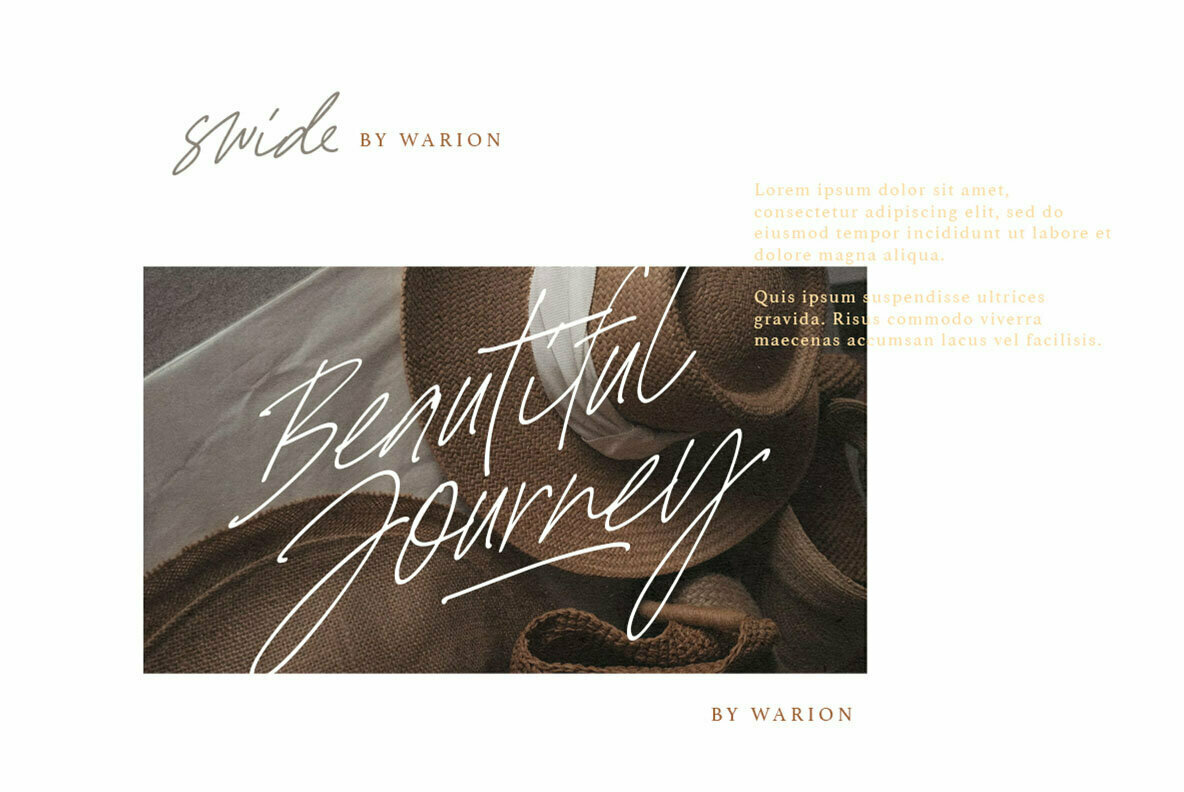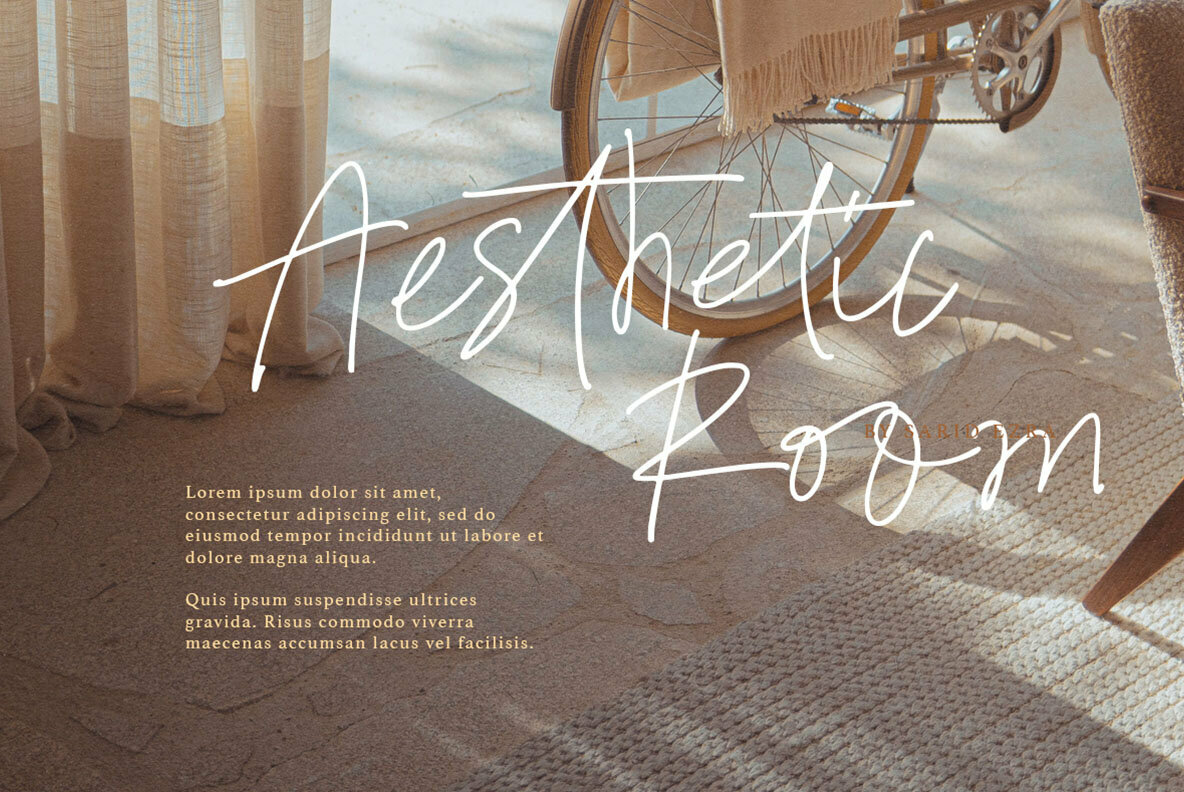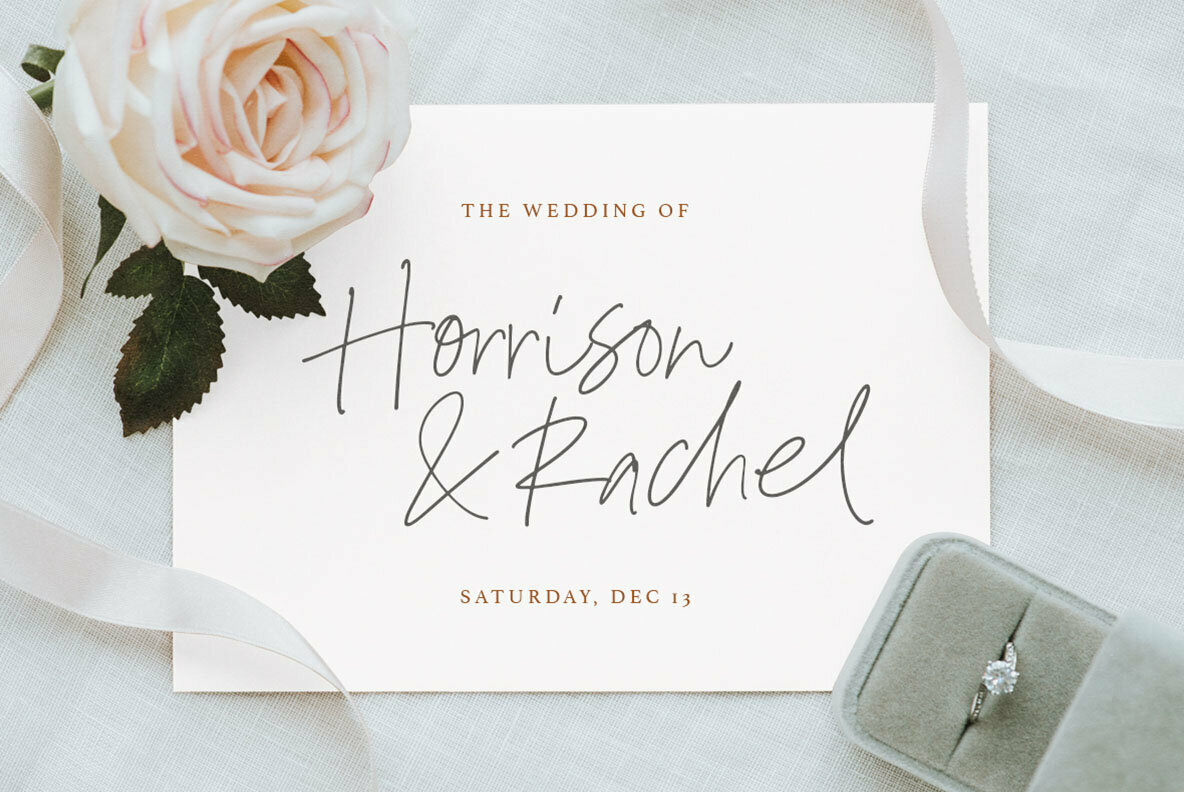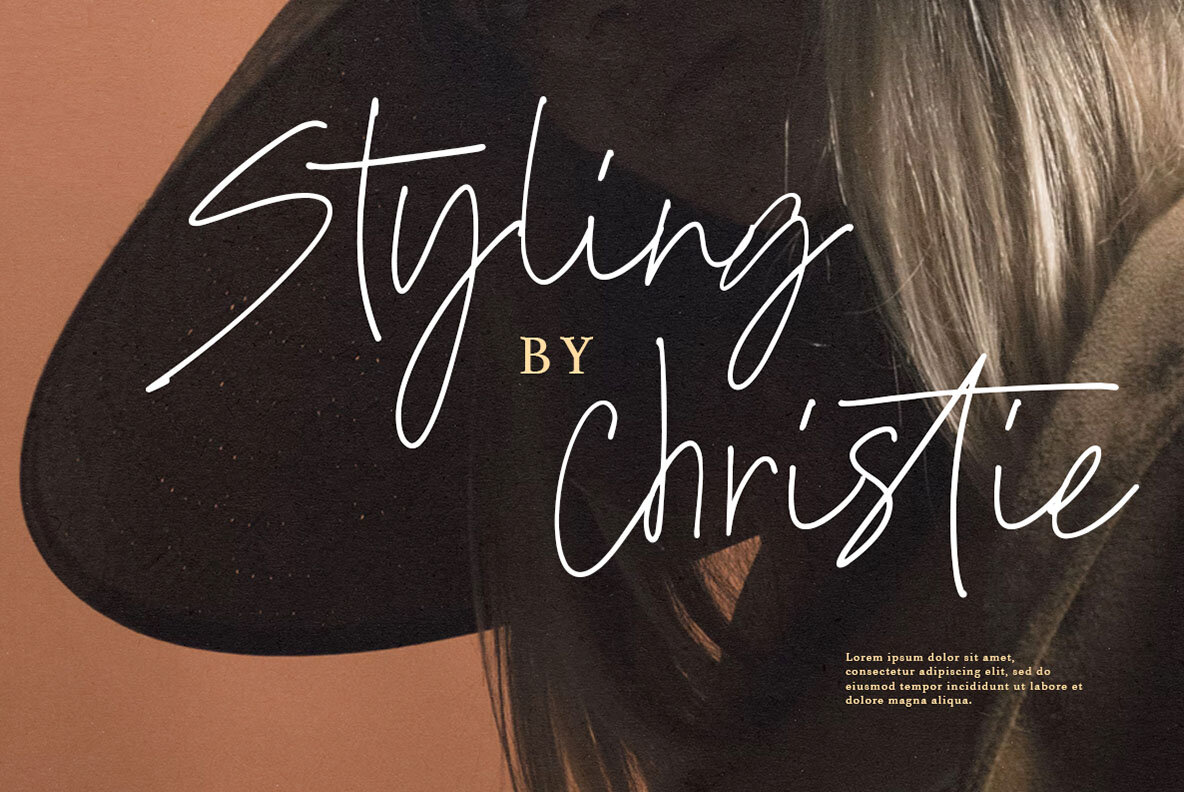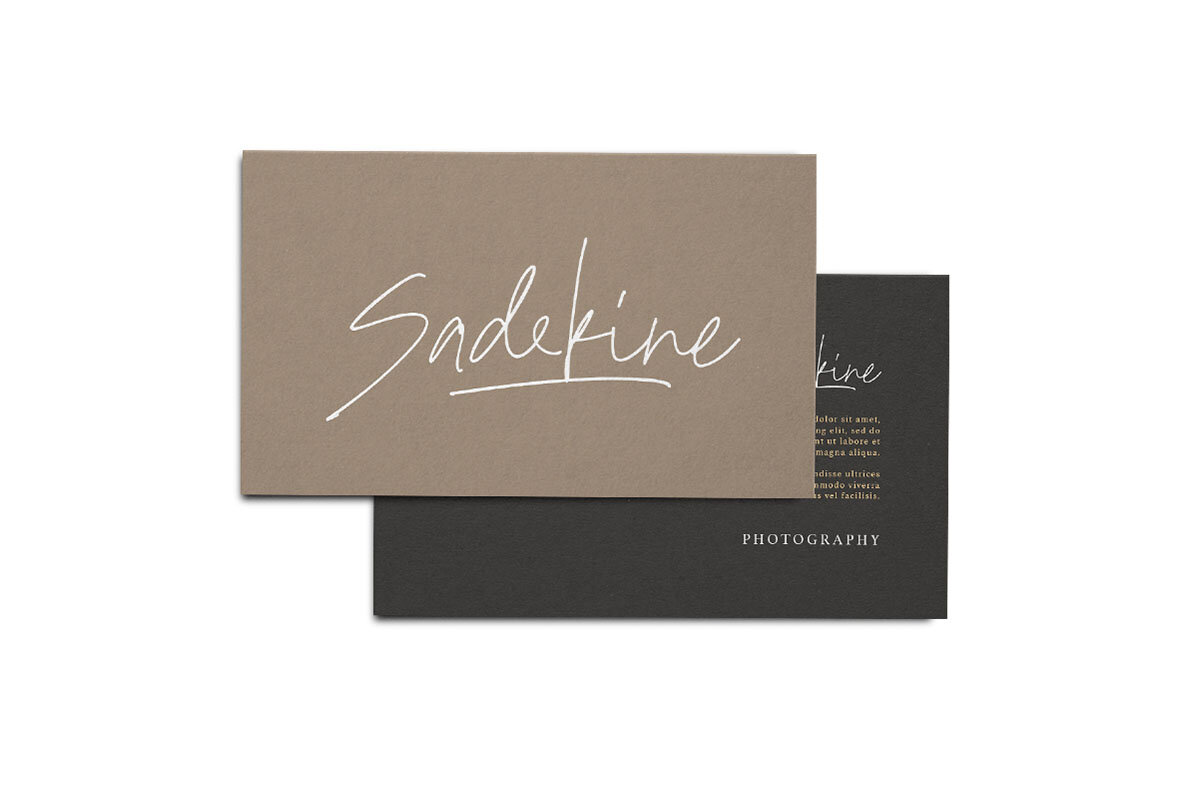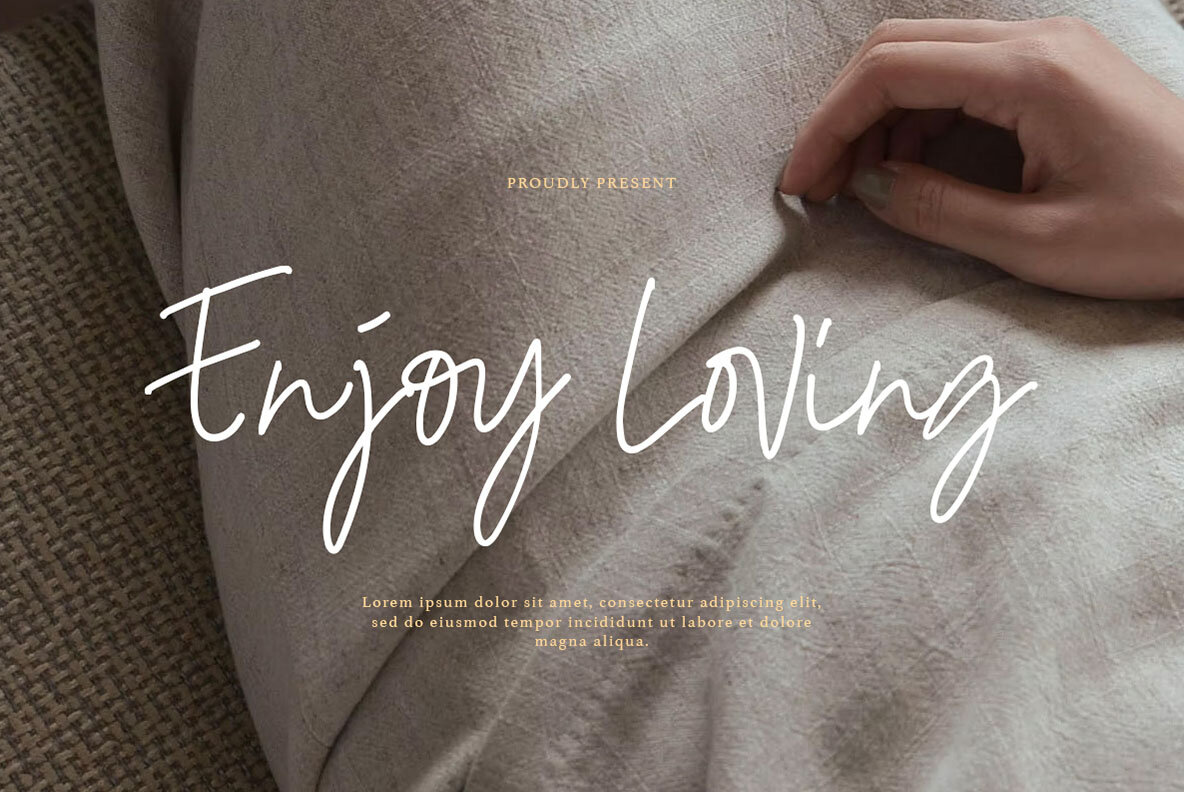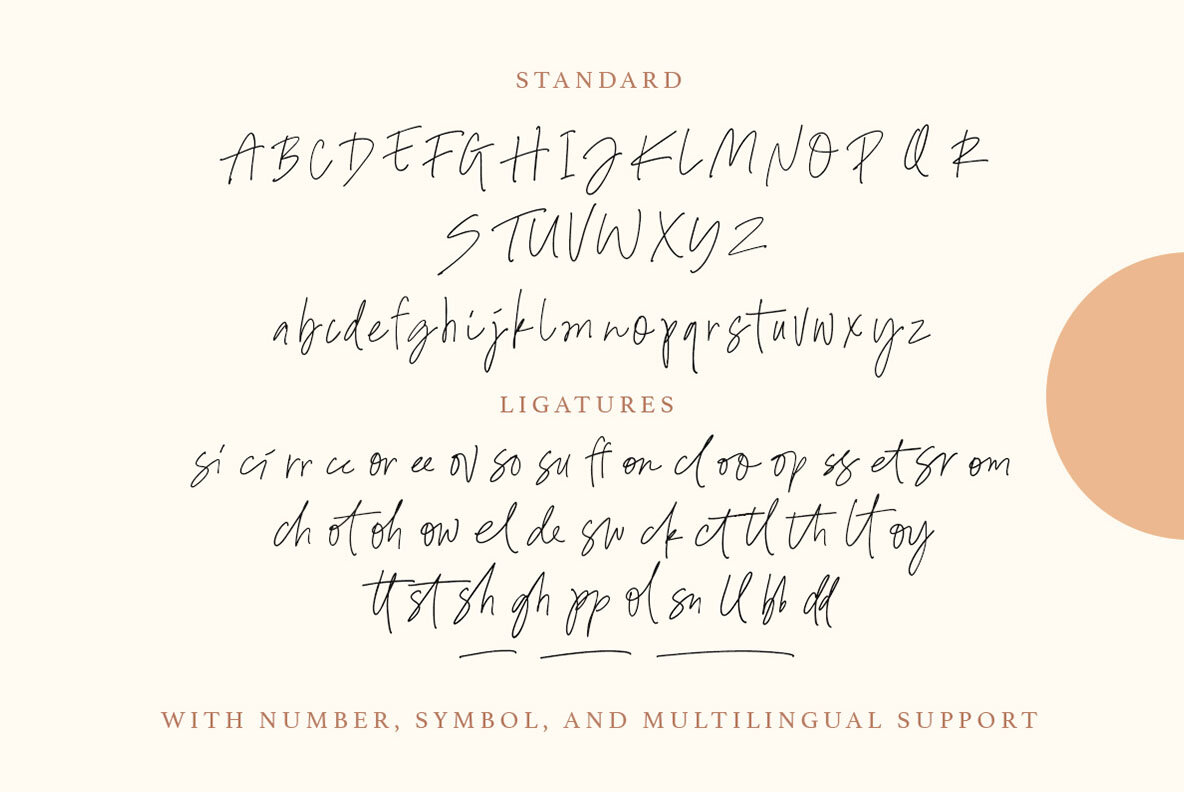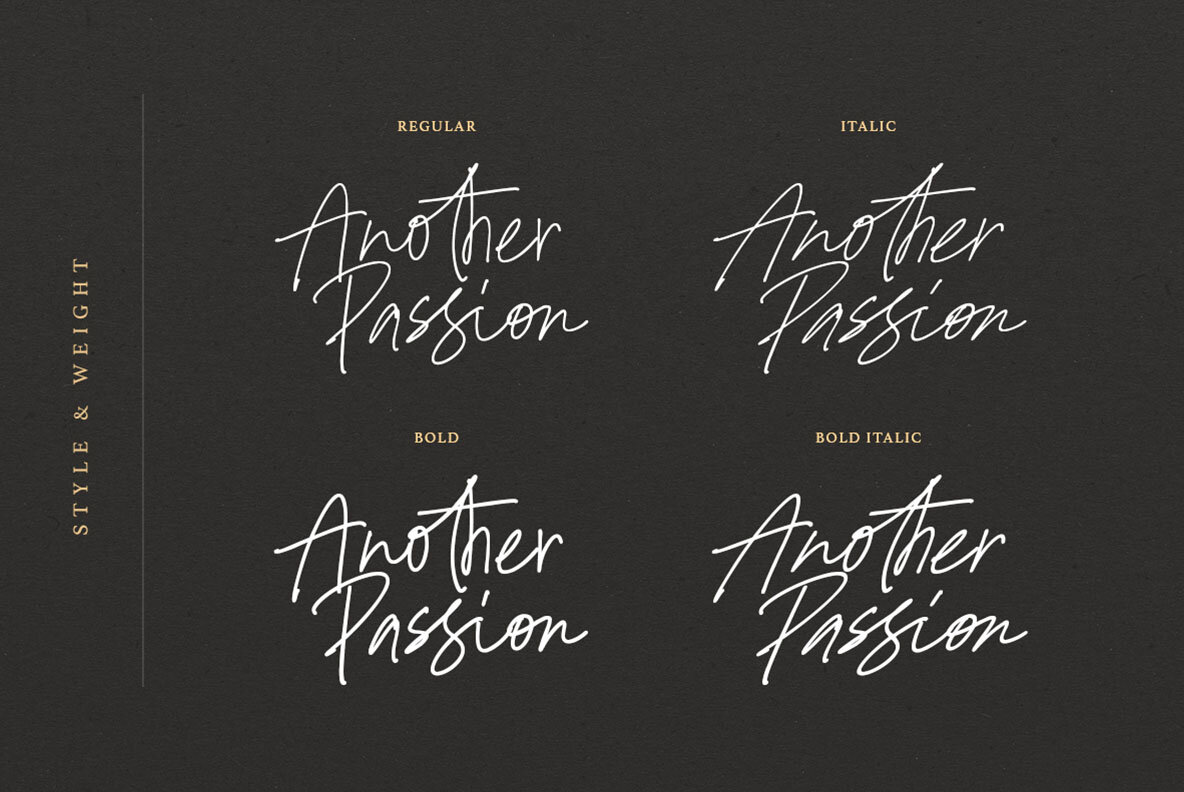
Another Passion Font
Another Passion Script Family invites you to bring personal flair to your projects with its artisanal appeal. This collection of four distinct styles—regular, italic, bold, and bold italic—complements branding, fashion design, and typography that requires a handwritten touch. Its delicate curves and ligatures capture an authentic script aesthetic, making it a warm choice for creating logos or memorable quotes. Explore the world of written elegance with Another Passion Script's thoughtful design, inviting creativity to flow.Another Passion: Elegance Meets Expressive Handwriting